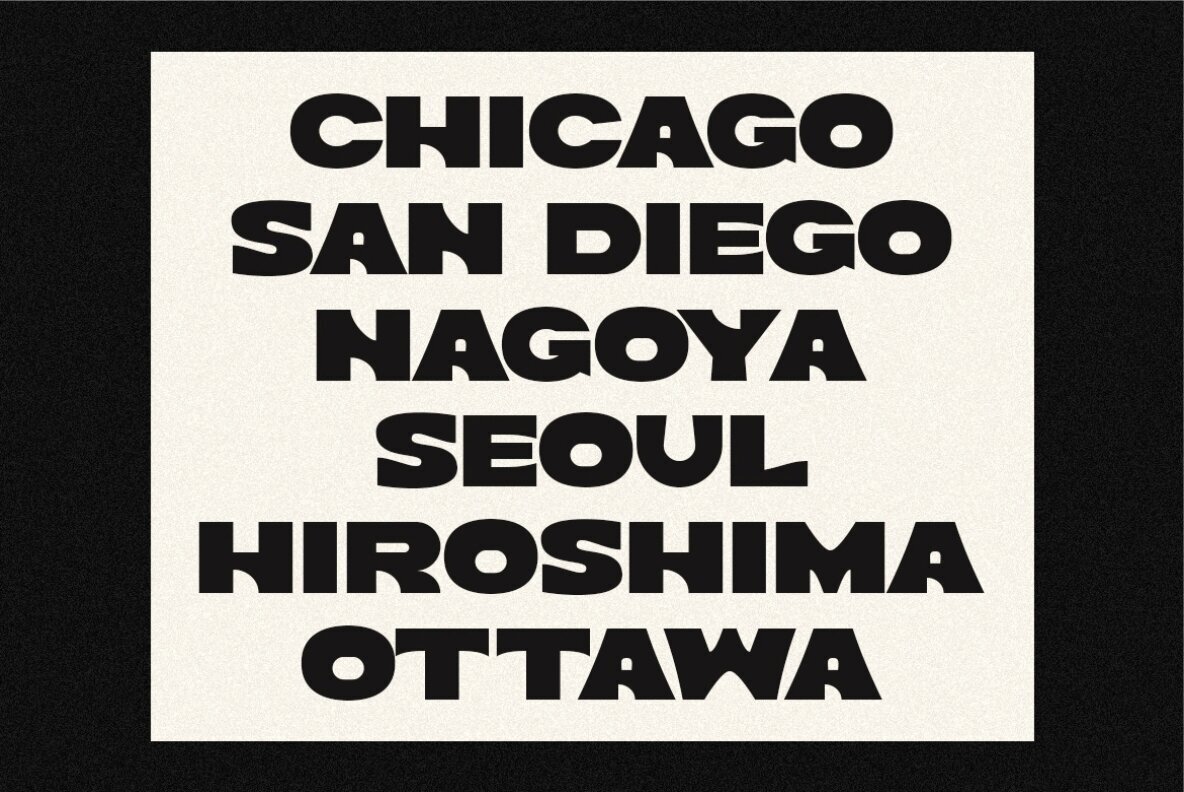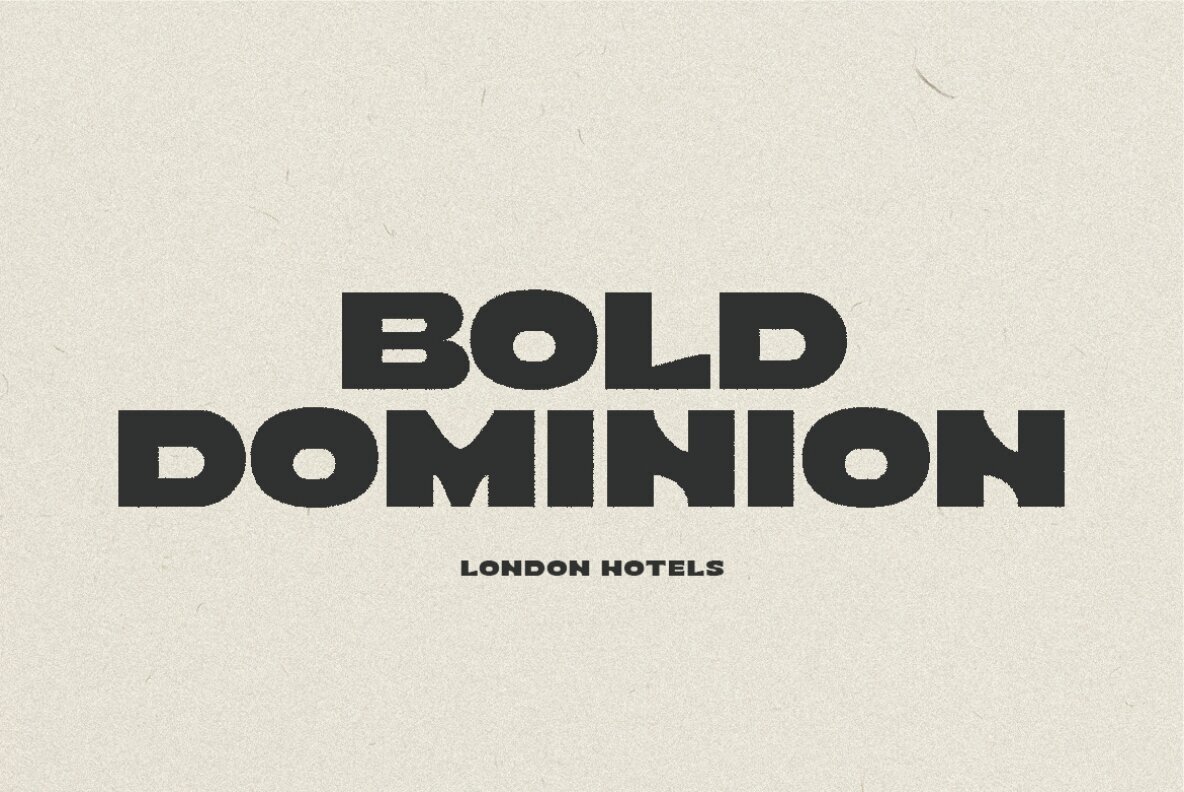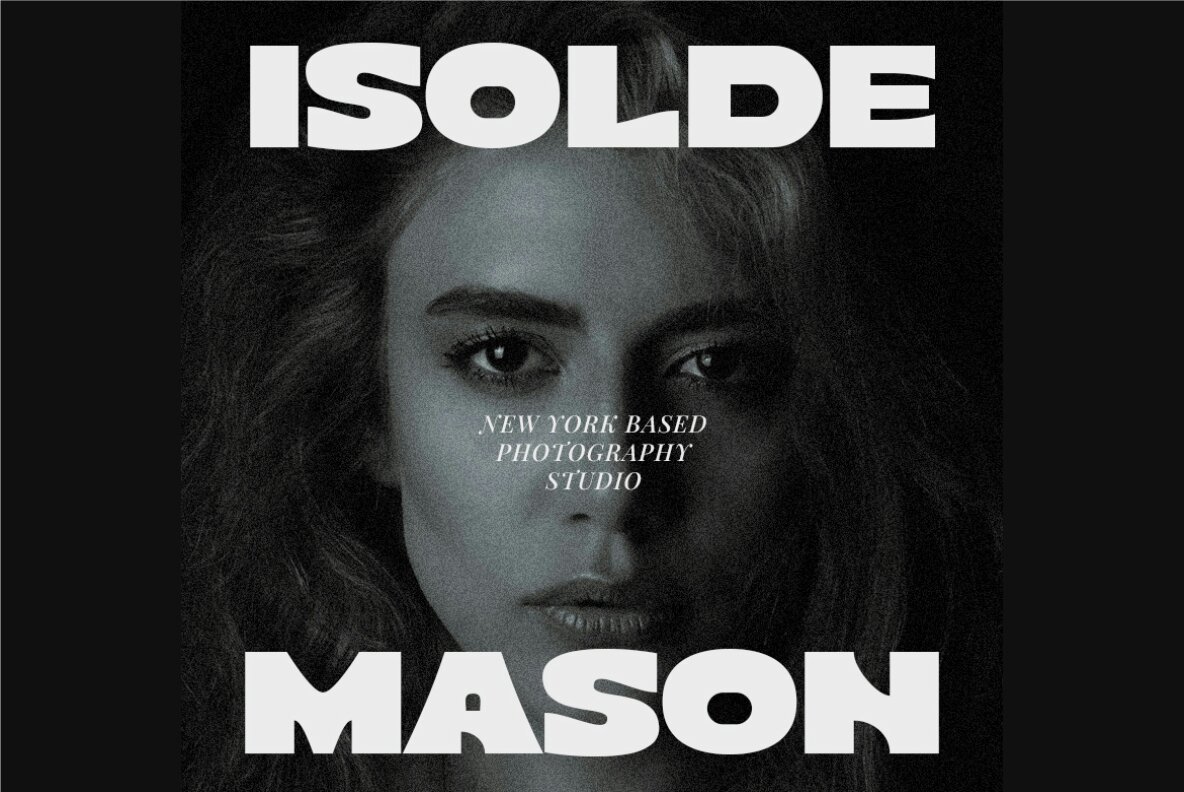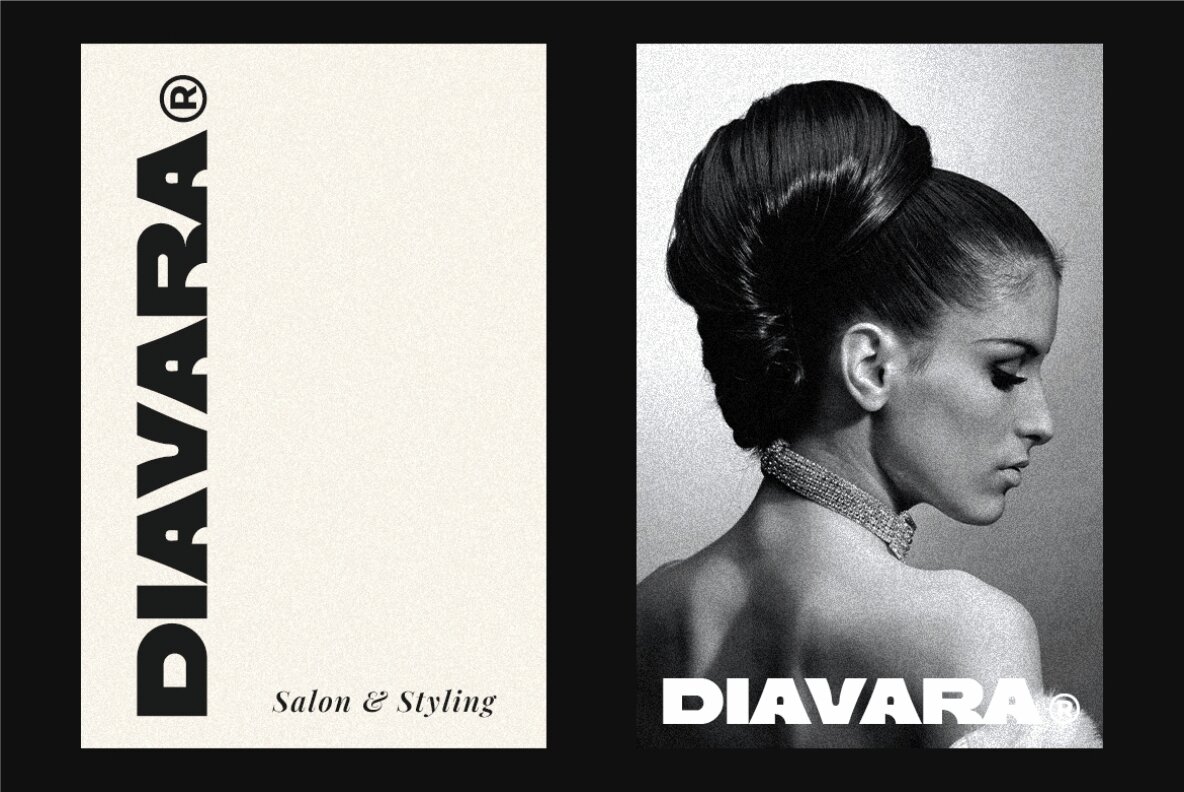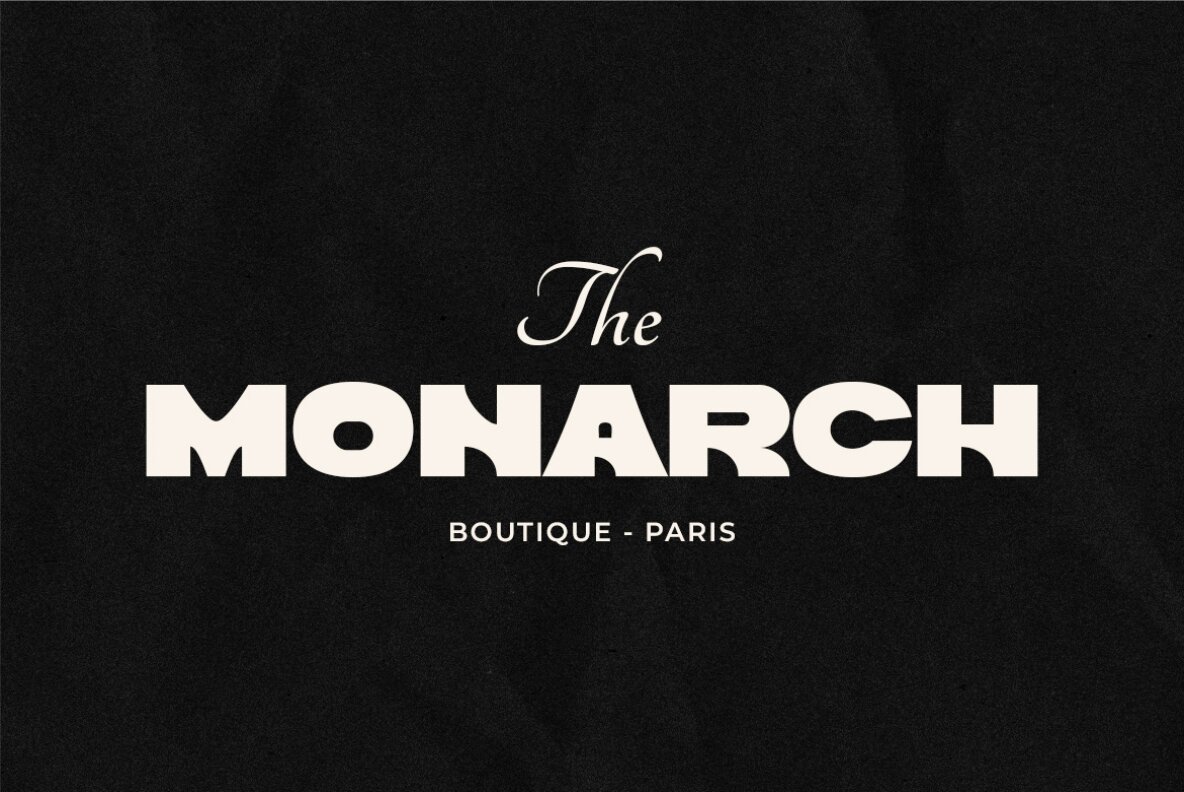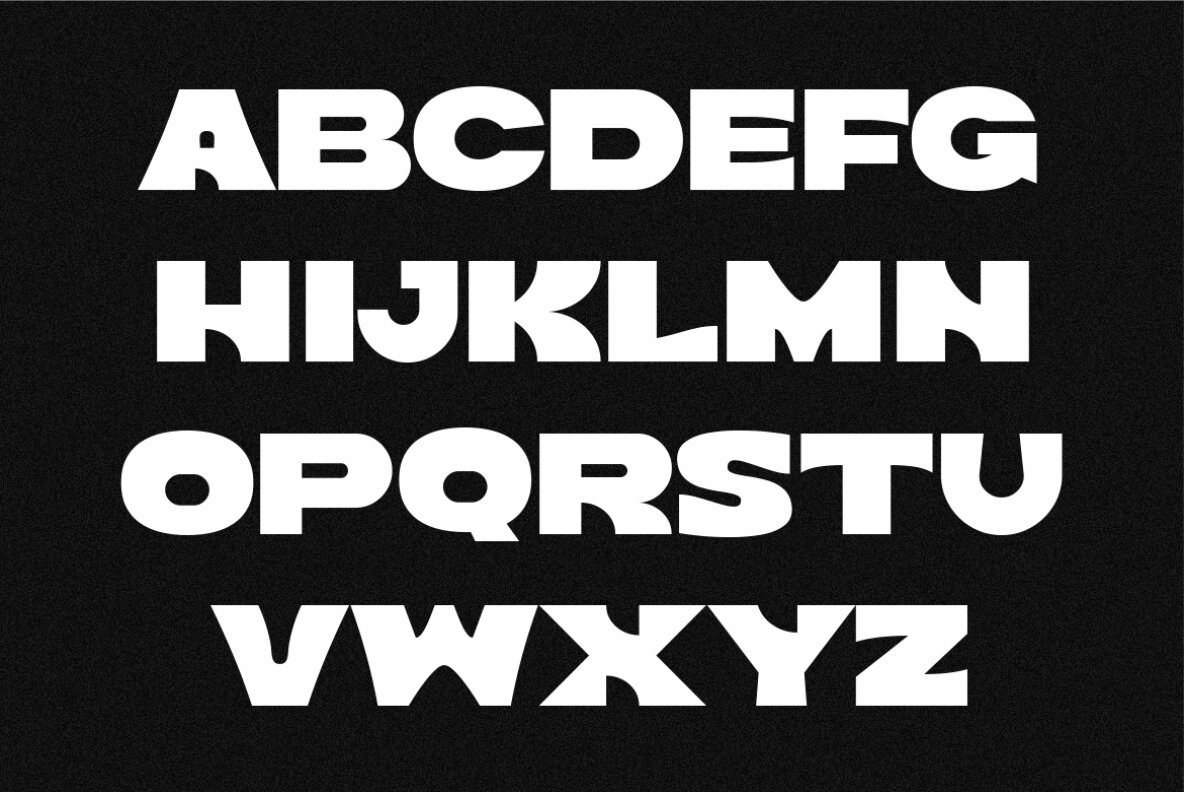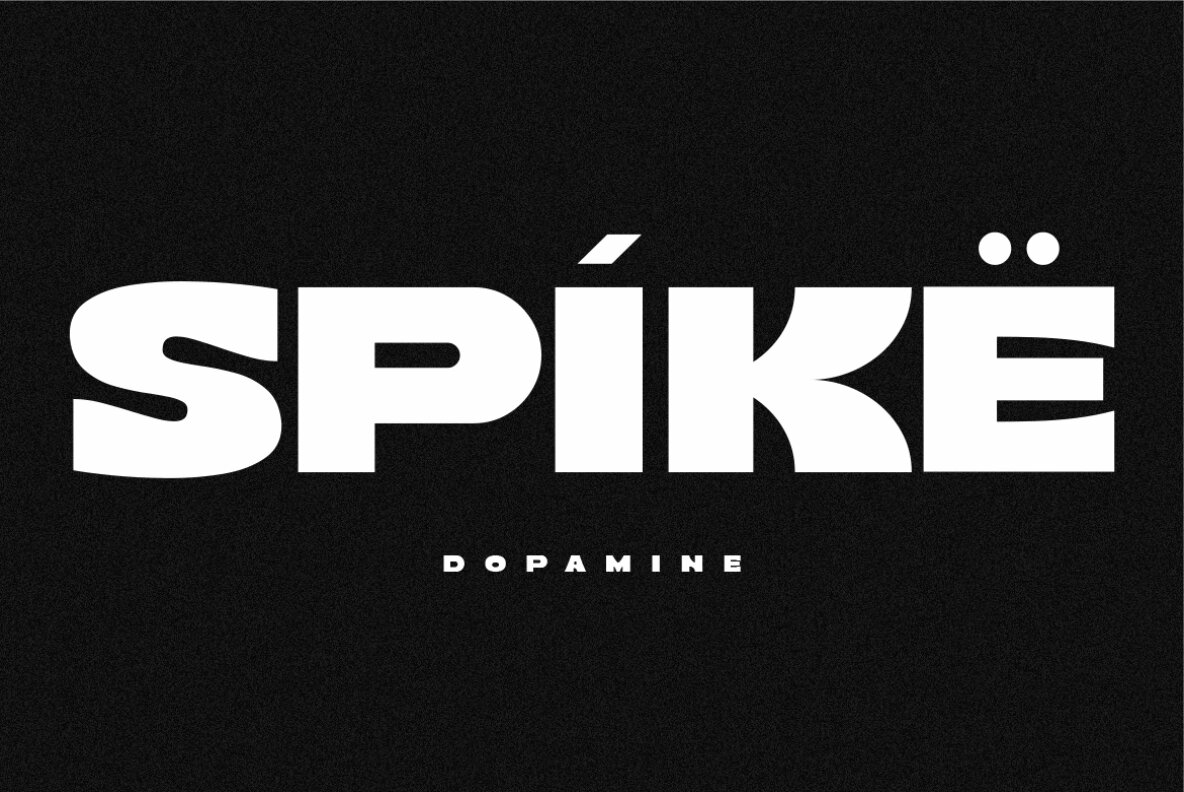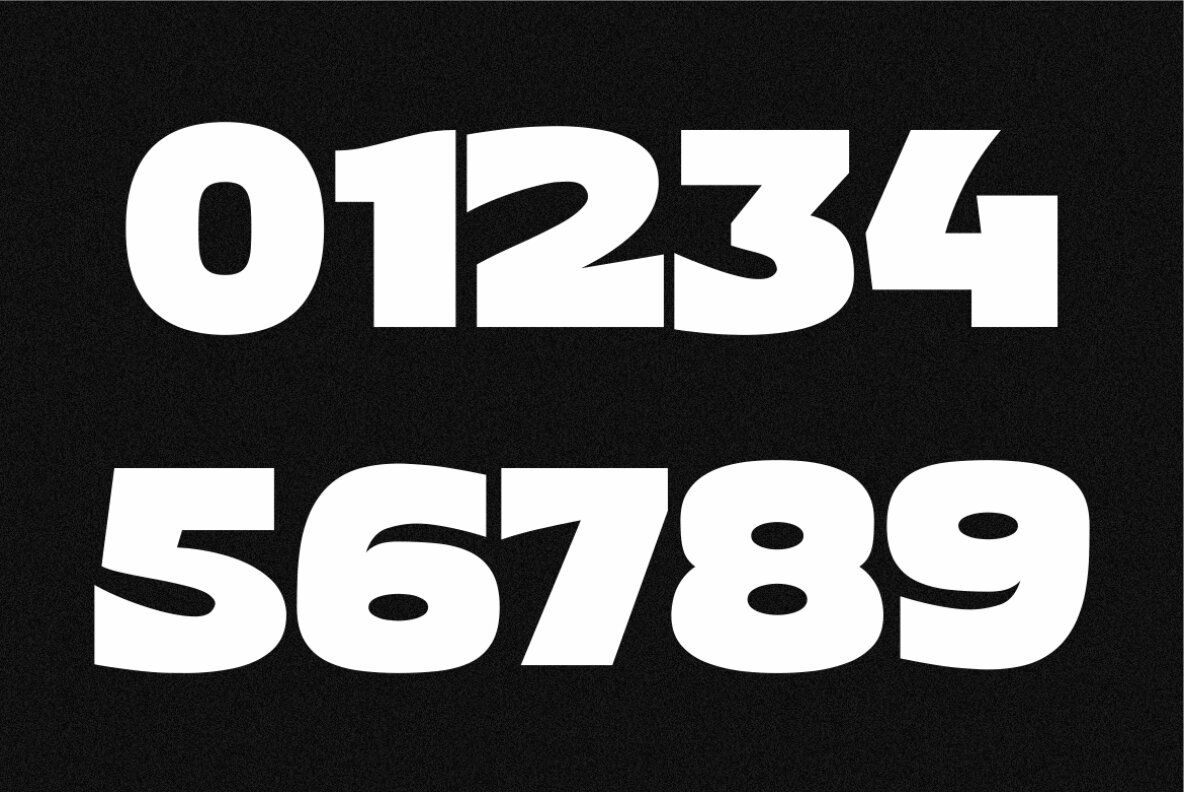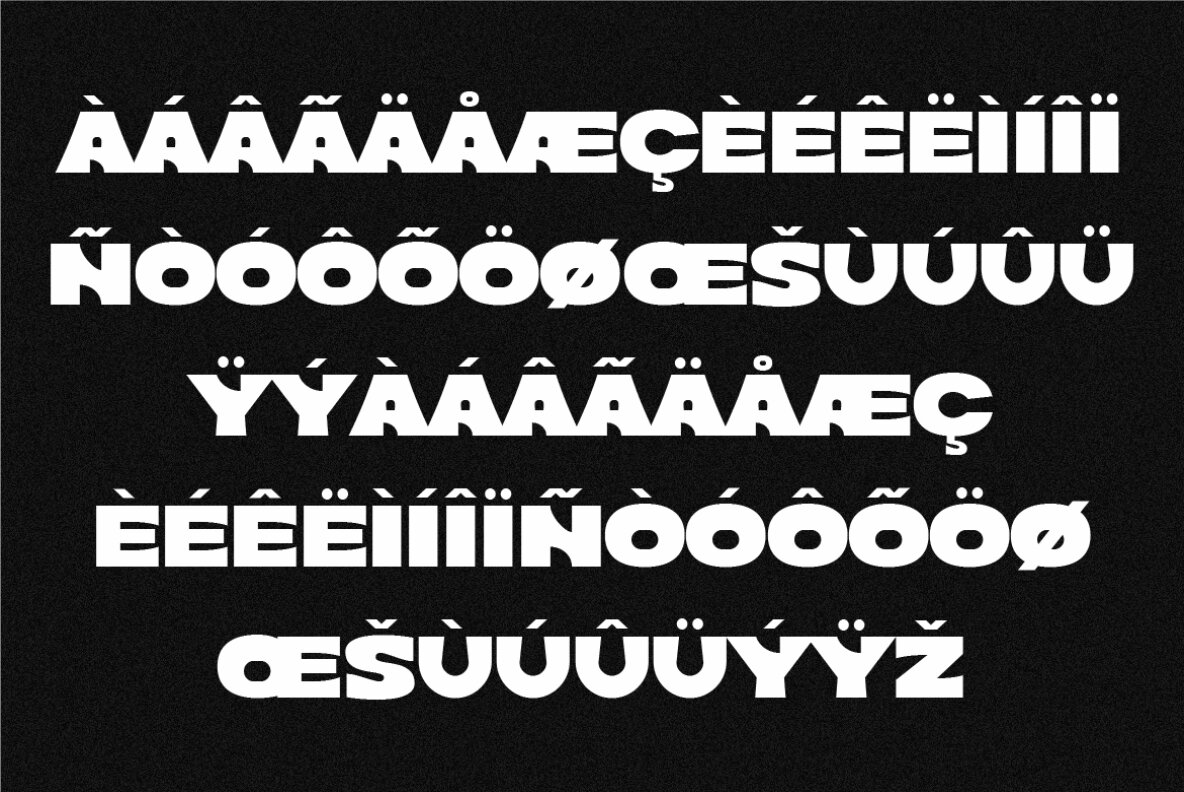
Teenage Spike Font
Teenage Spike by Teenage Foundry is a striking sans serif font designed to make a statement. With its bold and contemporary design, this font is perfect for headlines and titles, offering a unique aesthetic that captures attention and leaves a memorable impression. For any questions, please contact us. Thank you!Teenage Spike: Bold Sans Serif for Modern Headlines